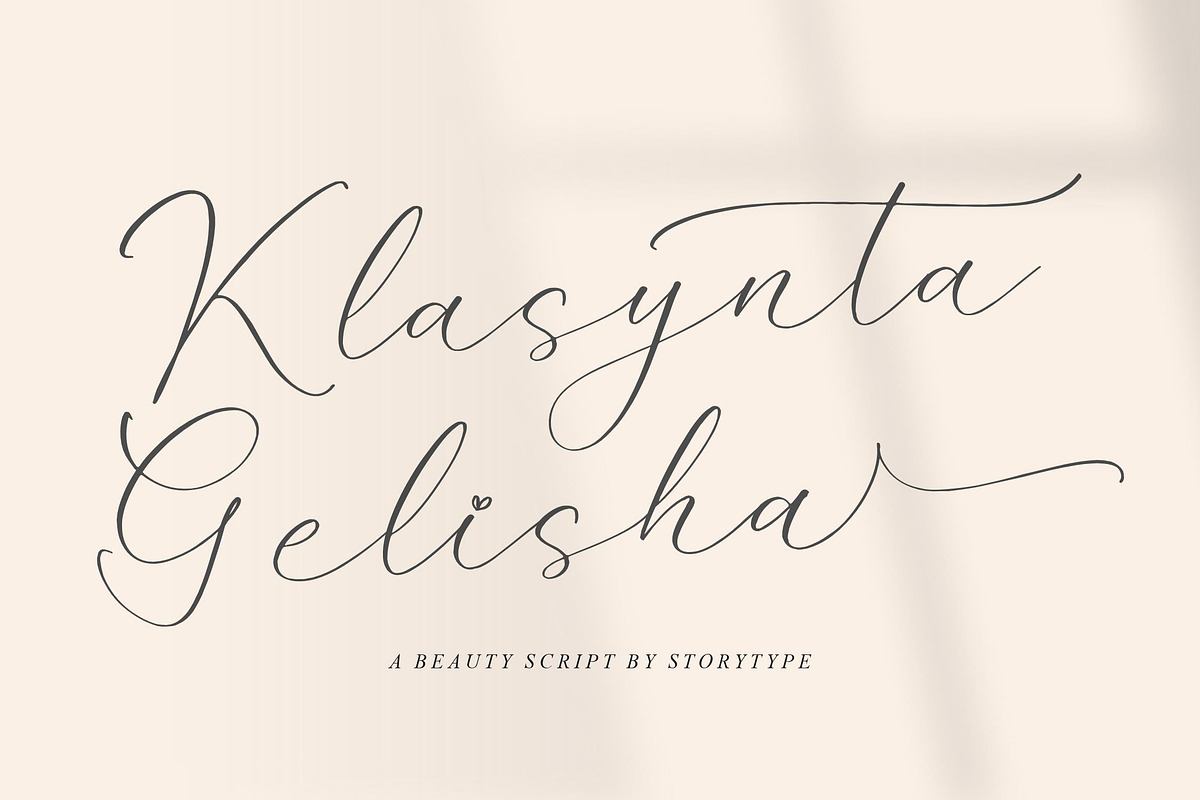
Klasynta Gelisha Beauty Script Font Free Download
Klasynta Gelisha Beauty Script Font Free Download is an elegant and sophisticated script typeface designed to add a luxurious and feminine touch to your designs. With its smooth curves, refined letterforms, and graceful strokes, this font is perfect for wedding invitations, branding, beauty and fashion logos, social media graphics, and any project that requires a stylish and upscale look.
Its modern calligraphy style brings a personal, handwritten feel while maintaining legibility and elegance. Whether you are designing for a beauty brand, luxury products, or an elegant event, Klasynta Gelisha brings a refined and professional touch to your typography.